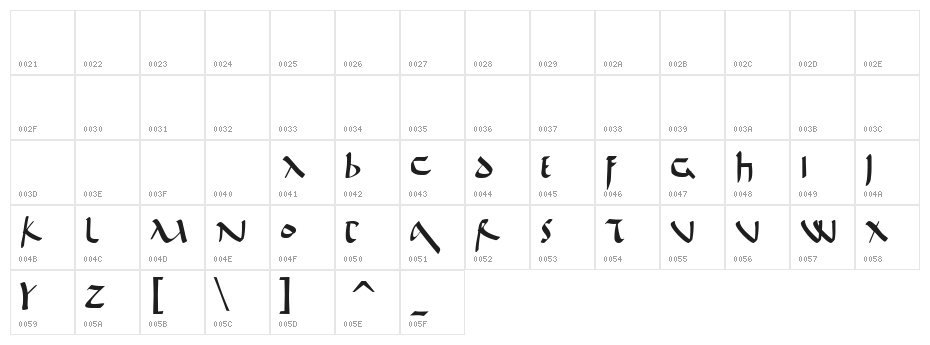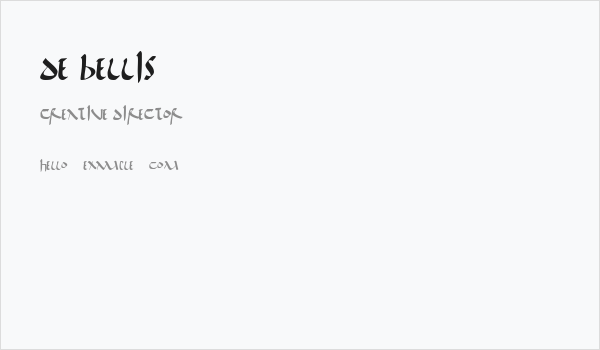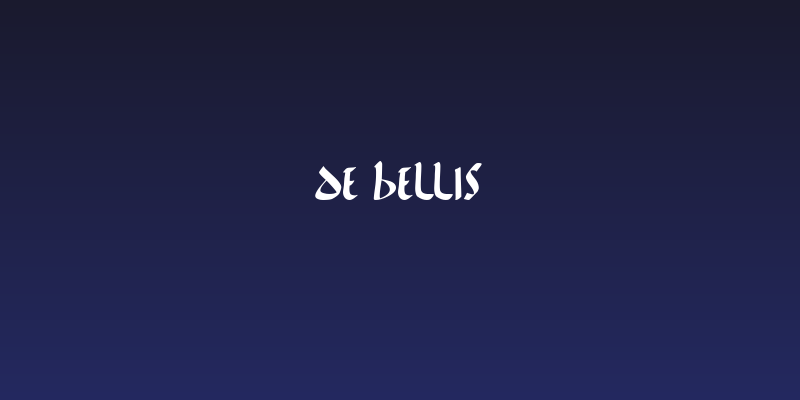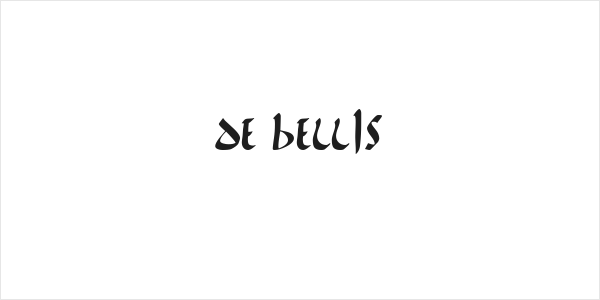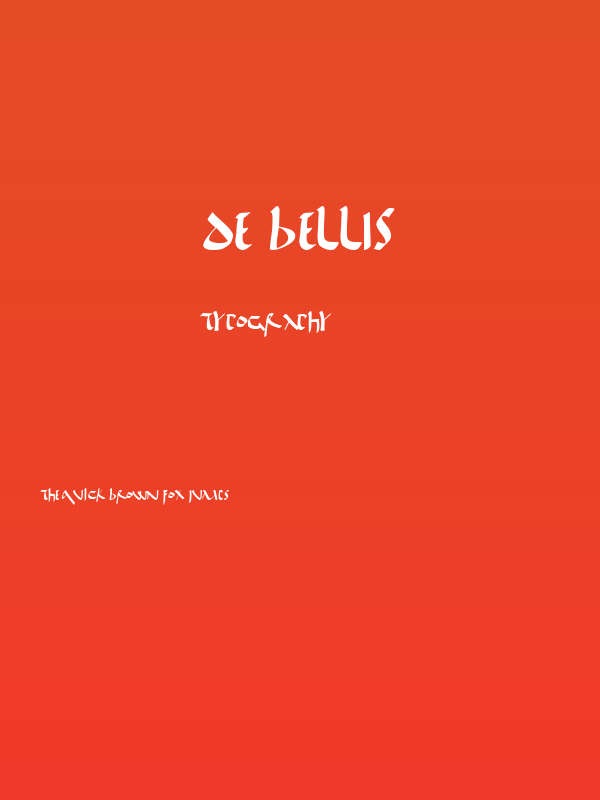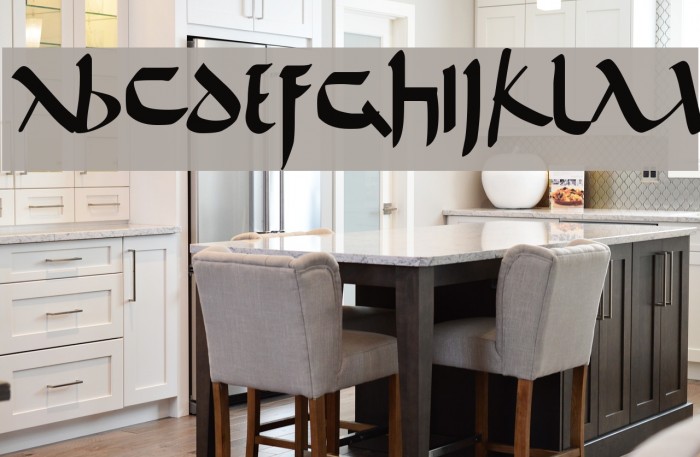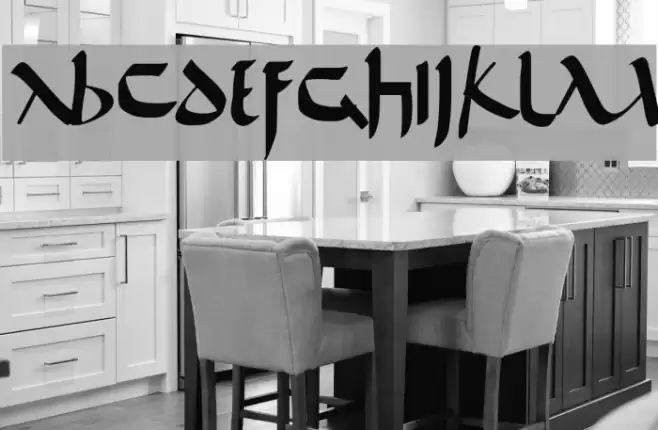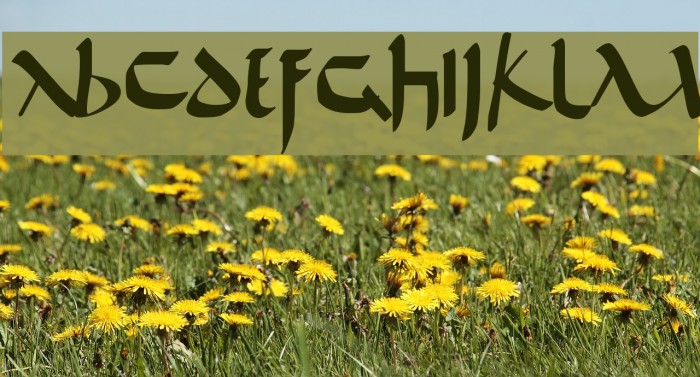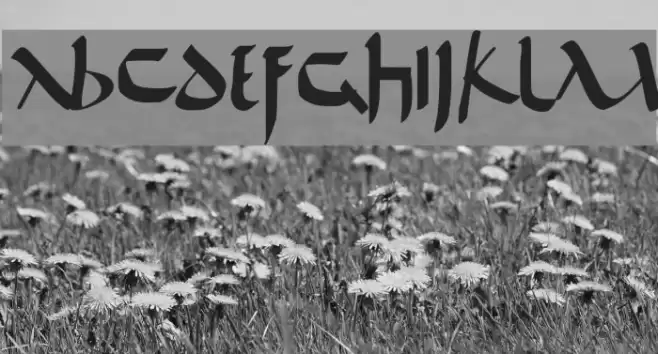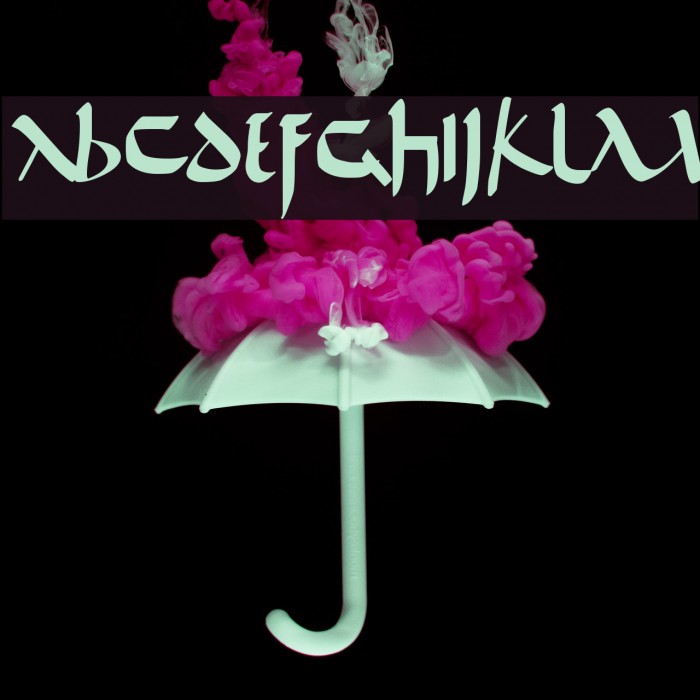
De Bellis Font
De Bellis Description
This font exhibits a bold and dynamic style, reminiscent of medieval calligraphy with a modern twist. The characters are sharply angled and possess a strong presence, making them ideal for impactful designs. The uppercase letters are particularly striking, with elongated strokes and unique flourishes that add a sense of movement and energy. The lowercase letters maintain this aesthetic, offering a cohesive look across the typeface. The overall design is both decorative and legible, suitable for projects that require a touch of historical elegance combined with contemporary flair.
| Proposed Projects | Ideal for historical-themed designs, book covers, posters, and branding that requires a dramatic and elegant touch. |